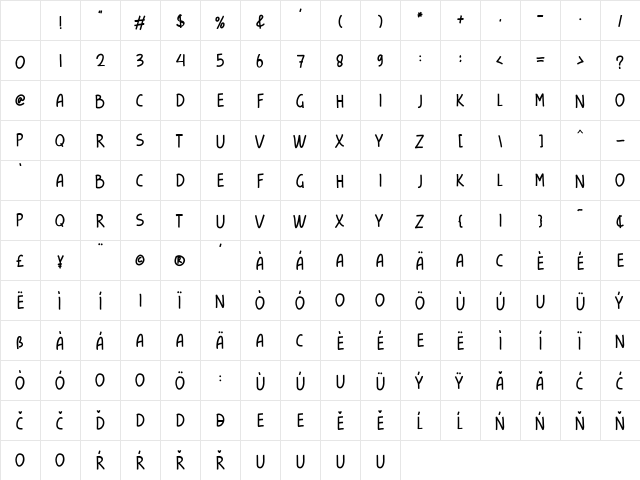
Complete kindly late Regular glyph index. Displaying only characters natively supported by kindly late Regular font.
kindly late is a composed and adaptable typeface that performs quietly and consistently across a wide range of design contexts.